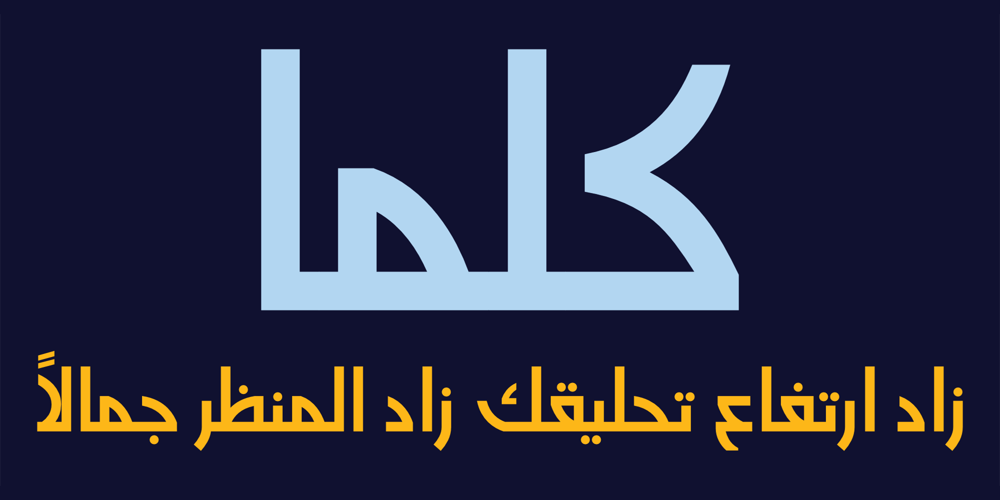
HS Almidad
HS Almidad font
HS Almidad Font Family was designed by Hasan Abu Afash and published by Hiba Studio. HS Almidad contains 5 styles and family package options. HS Almidad has been started in coincidence with my designing logotypes consisting of triangle geometric, looking shape and overall structure. After designing several words, I thought of using the design concept of this logo to develop a geometric Kufi font. All letters of this typeface family were conceived with suitable and coordinated dimensions to create five weights: Thin, Light, Regular, Medium and Bold: They support Arabic, Persian, Urdu and Kurdish languages. With a triangle look, this font is a simple and creative addition, which can be useful for book titles and variety of other geometrical constructions projects. It brings new design concept to enhance beauty and harmony and enrich our previous geometrical font contributions, which started with the release ofHS Alhandasi, HS Almohandis and HS Alfaris from HibaStuido.